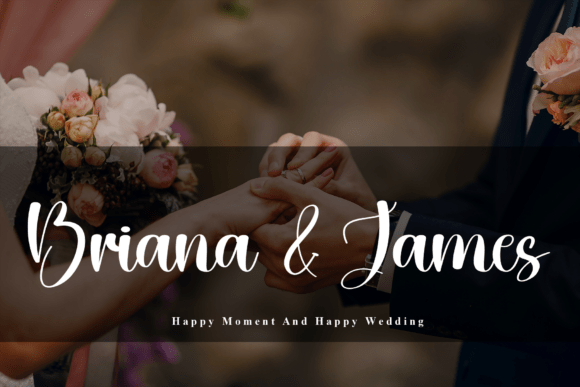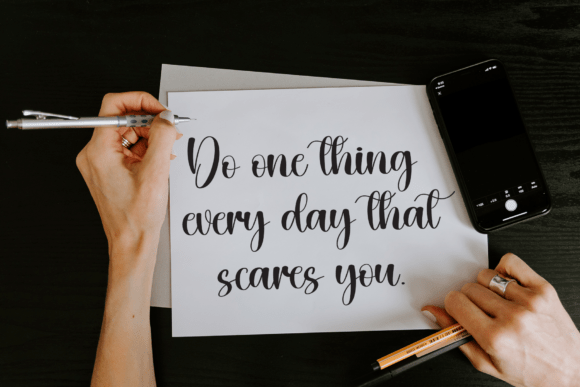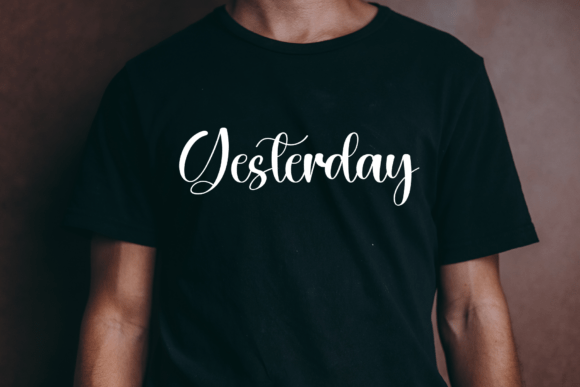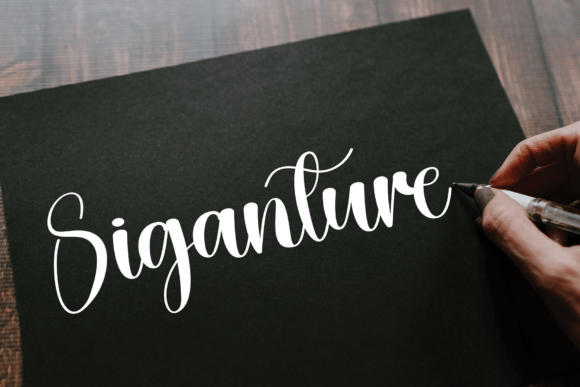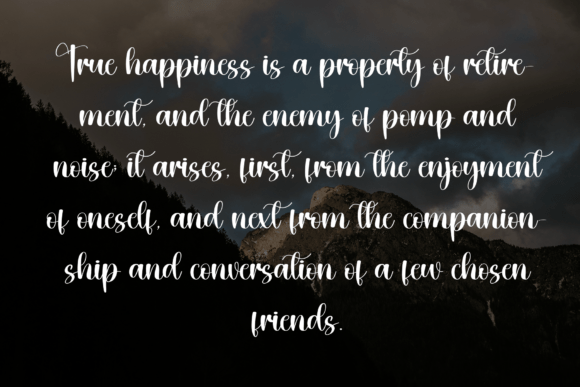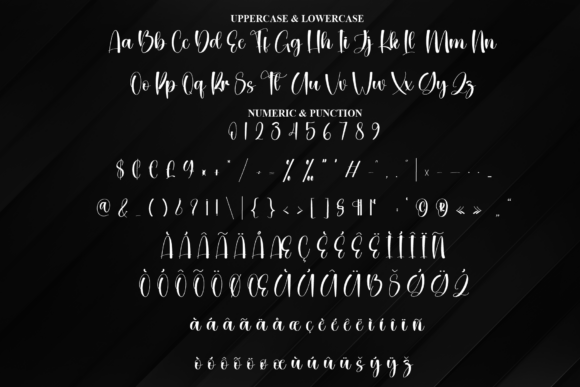
The Magical World of Disney Font: A Designer’s Delight
I’ll never forget the time I was working on a project for a children’s birthday party, and my client asked me to create a custom invitation that looked like it was straight out of a fairy tale. I spent hours scouring the internet for the perfect font, but nothing seemed quite right. That was until I stumbled upon the Disney font. Its whimsical, handwritten style instantly transported me to a world of wonder and enchantment. In this article, I’ll share with you my love for this font, its features, and how to make the most of it in your designs.
A Personal Review: What I Love About Disney Font
So, what makes Disney font so special? Here are a few things that I absolutely love:
- ✨ Unique and playful style: The Disney font has a natural, handmade feel that’s perfect for creating designs that are both fun and sophisticated.
- ✅ Versatility: Whether you’re working on a project for kids or adults, this font fits right in. Its friendly style makes it suitable for a wide range of designs.
- 💫 Emotional connection: The Disney font has a way of evoking emotions and creating a sense of nostalgia. It’s perfect for designs that require a personal touch.
While the Disney font is an amazing addition to any design project, there are a few things to keep in mind:
- 🤔 Legibility at small sizes: Like many script fonts, the Disney font can be a bit tricky to read at small sizes. Make sure to test it out at different sizes to ensure it’s still legible.
- ⚠️ Overuse: While the Disney font is incredibly versatile, it’s easy to overuse it. Mix it up with other fonts to create visual interest and balance.
The Story Behind Disney Font
The Disney font was designed with the goal of creating a unique and recognizable style that would evoke the magic of Disney. While the exact design process is unknown, it’s clear that the font was crafted with love and attention to detail.
| Font Name | Disney Font |
| What is the Disney font? | The Disney font is a sweet and friendly handwritten font that’s perfect for creating designs that are both fun and sophisticated. |
| What are some common uses for the Disney font? | The Disney font is perfect for designs that require a touch of whimsy and fun, such as children’s party invitations, branding, and advertising. |